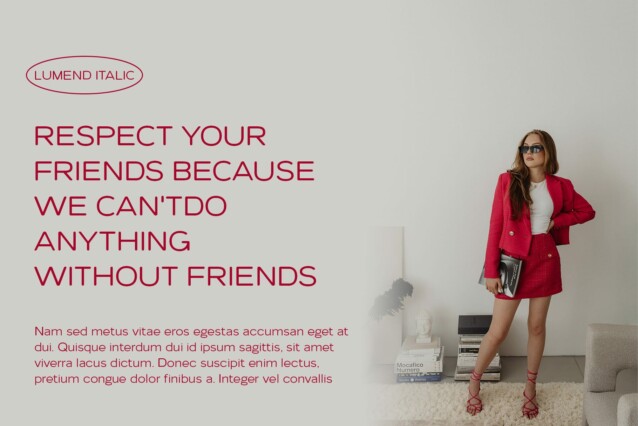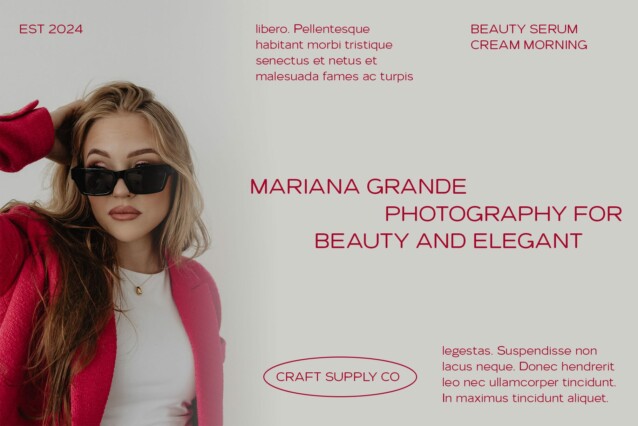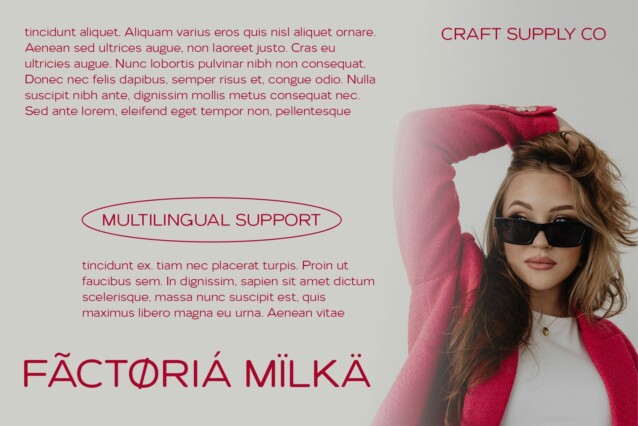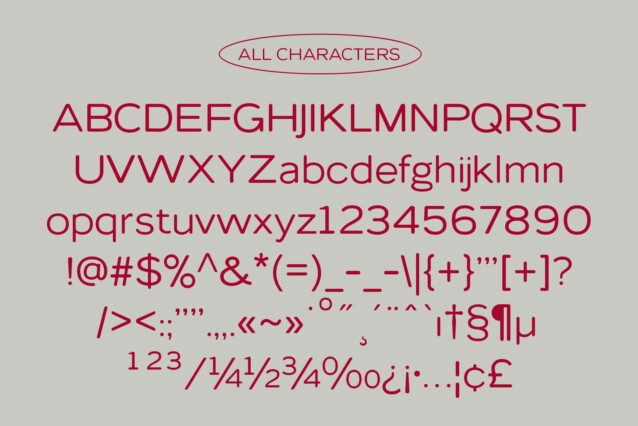
Lumend Rounded Font
Lumend Rounded Font: Soft and Approachable Sans Serif. Gentle Curves, Low Contrast Lumend Rounded features rounded stem terminals and a low-contrast sans serif design, exuding a soft and approachable aesthetic.
Contemporary Appeal With its rounded edges and subtle contrast, This font offers a modern twist on classic sans serif typography, appealing to contemporary design sensibilities.